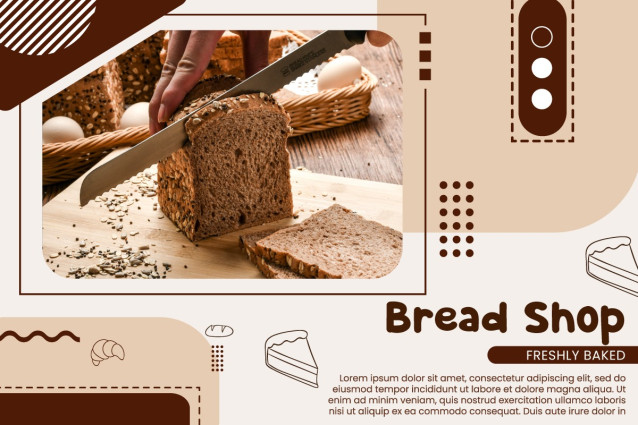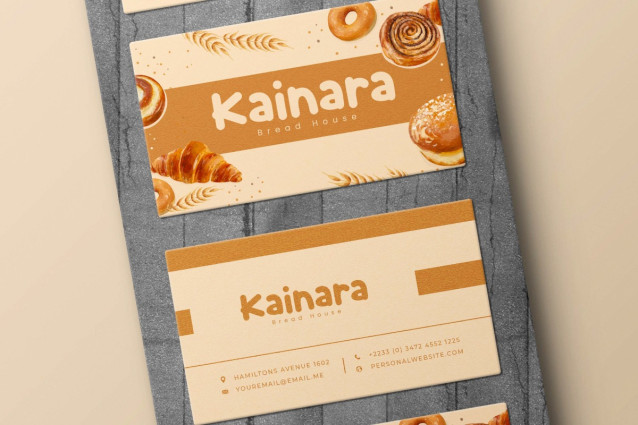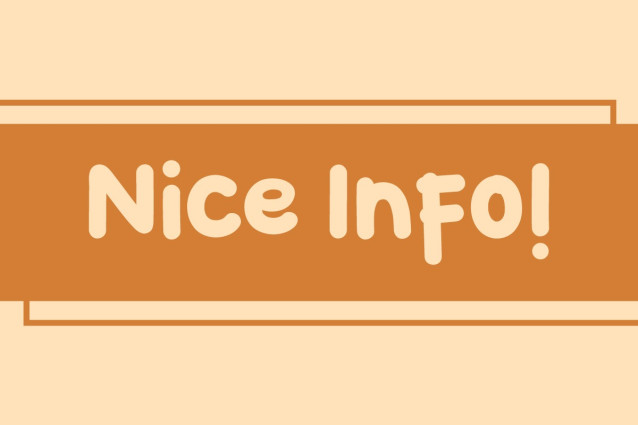
Nice Info Font
Nice Info Font is a playful comic display font by VinType Studio. This font is what you usually see in comic books or children’s film series. Its small shape with thick lines makes it look very adorable! It will be suitable for many industries, such as advertisement, bakery and pastry, café, event or festival, fashion, handicraft, homeware,kids stuff, etc.
Nice Info Font includes full set of Uppercase and Lowercase Basic Characters, Numerals, Punctuation, and Symbol. This font would be perfect for those of you who need a charming look, such as brochure, custom design, gift box, greeting card, invitation, label, poster, product packaging, quote, screen printing, stationery, website, and more!